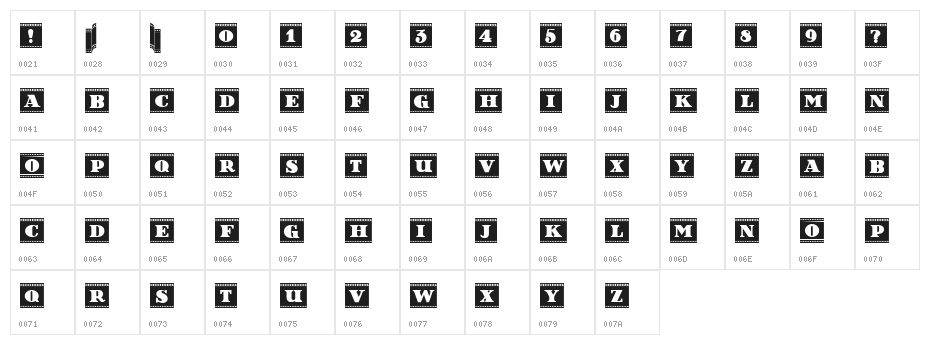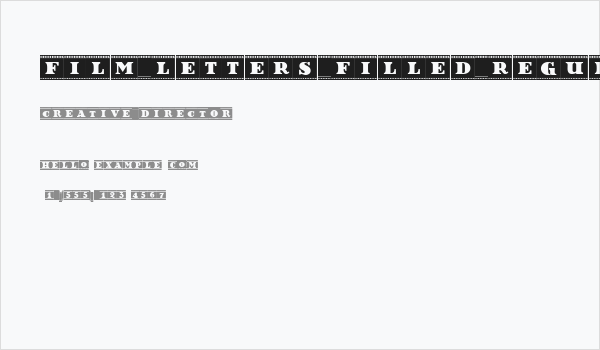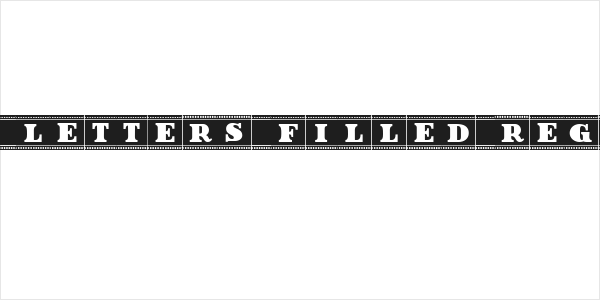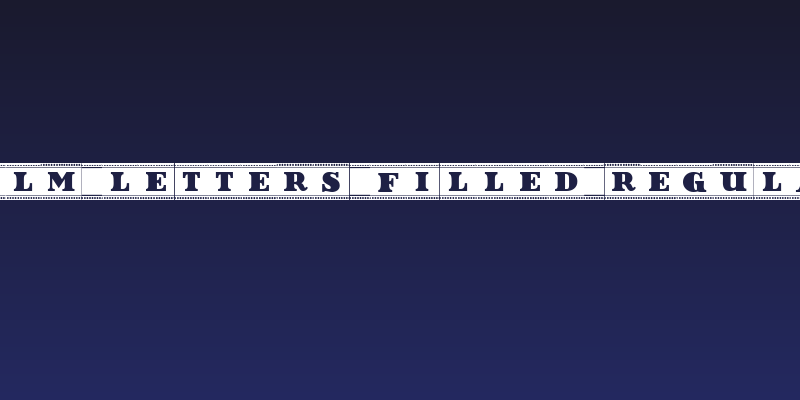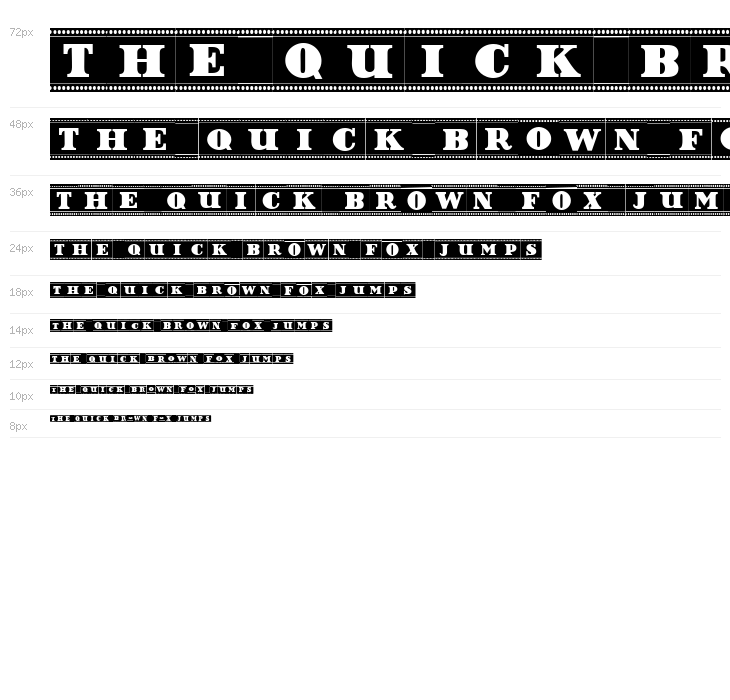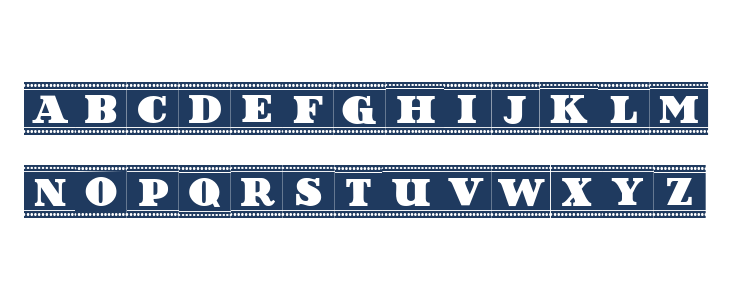
Film Letters Filled Regular Font
Film Letters Filled Regular Description
This font features a unique design where each character is encapsulated within a film strip frame, evoking a cinematic theme. The letters are bold and uppercase, with a strong presence that stands out against the black film strip background. The numbers and special characters follow the same style, maintaining consistency across the set. The font's design is reminiscent of classic film reels, making it ideal for projects related to movies, entertainment, or vintage themes. Its decorative nature makes it suitable for headlines or display purposes rather than body text.
Overall StyleVintage, Decorative
Proposed ProjectsPerfect for movie posters, film festival branding, entertainment event invitations, and vintage-themed designs.